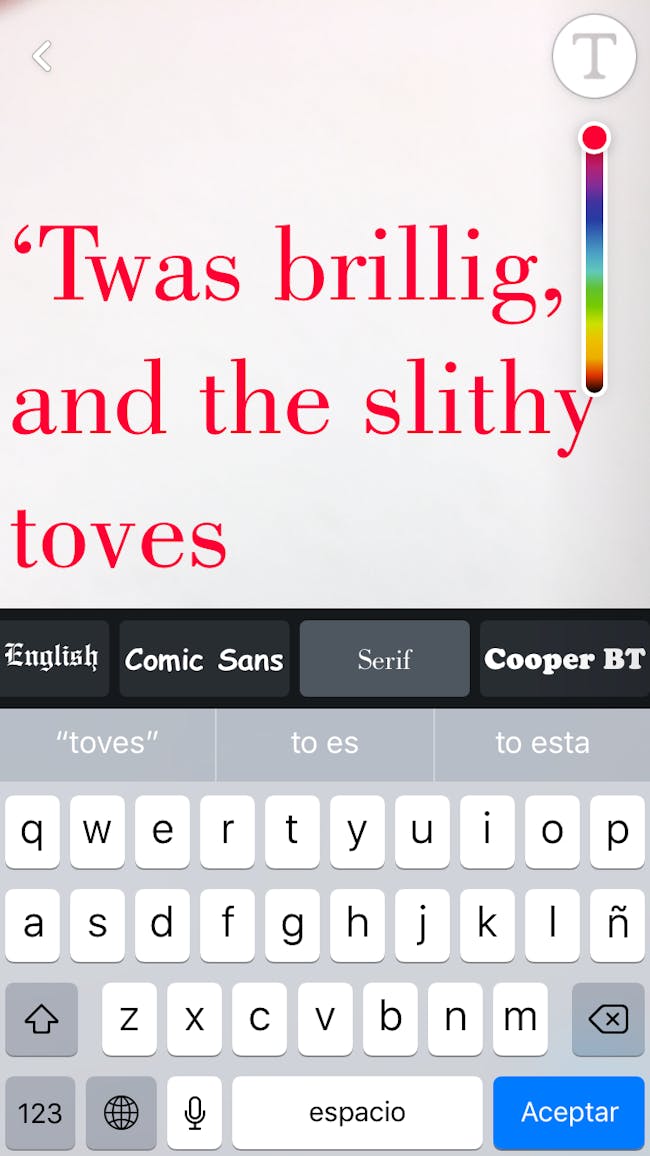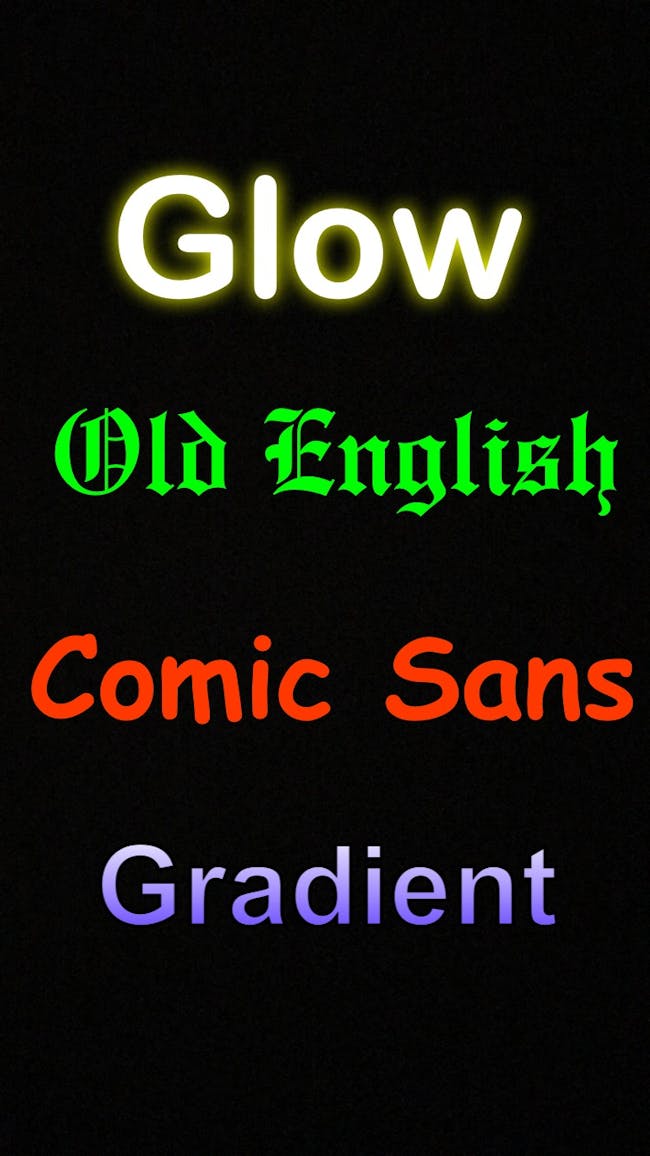
How to Get Different Fonts on Snapchat, Including Rainbow Text
This one's for the word nerds.
Snapchat users now have the ability to change the text font on their snaps. The new feature, which was made available in the U.S. on Wednesday, is part of Snapchat’s comprehensive makeover that has left users confused and irate, even resulting in a petition to reverse the changes. Thankfully, the decision to include font options is rather delightful — here’s everything you need to know.
What Are the New Fonts?
The new update includes 13 different fonts that can be used to personalize your snaps. There are some classics, like Old English and Comic Sans along with new inclusions like Glow and Gradient.
There’s an italic font with a background highlight that looks exactly like the Supreme logo if you make it red. There is a classy serif if you want to cultivate a Robert Frost vibe. Basically anything you could want to redefine your personal brand.
You can also use multiple different fonts on the same snap, allowing your typographic inclinations to run wild.
How Do You Use Them?
Unlike the rest of Snapchat’s recent update, accessing the new fonts is fairly intuitive. After you take a picture, you can add text to it as you would have prior to the update. But now there is a bar above your keyboard that contains the new font options. Just click on one, and that’s it!
Given the largely critical reception to Snapchat’s new look, it’s important that the company integrates new features in a way that doesn’t disrupt the app experience. Unfortunately for Snapchat, Instagram added font options two weeks ago. The two social media giants will likely continue to copy one another’s features for the foreseeable future, so more change is probably on the horizon.